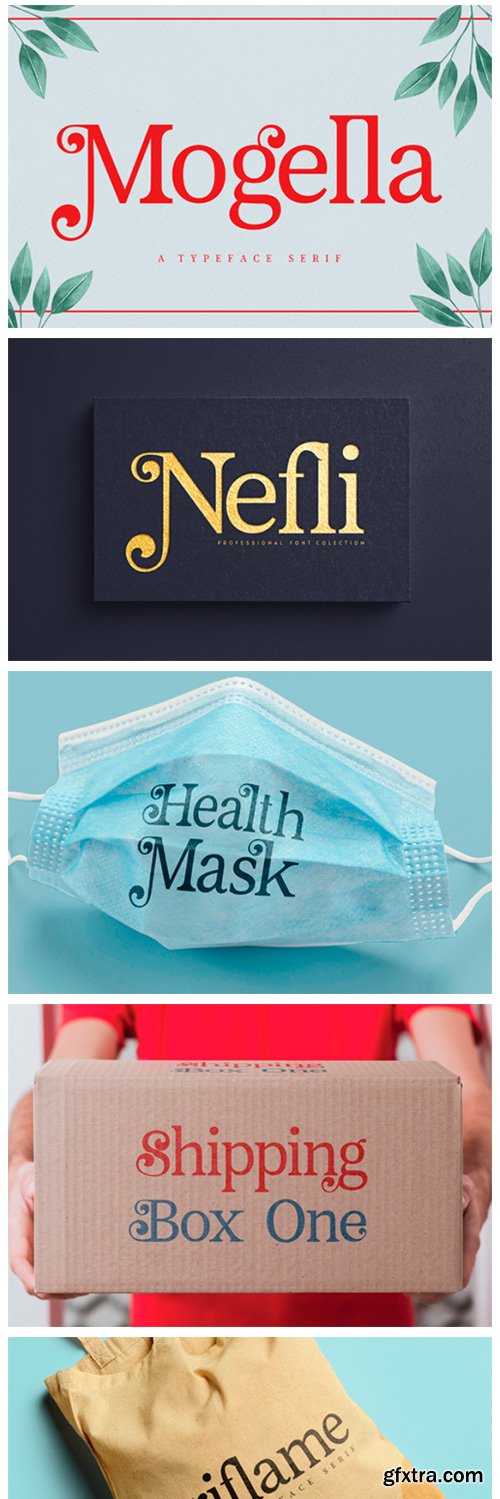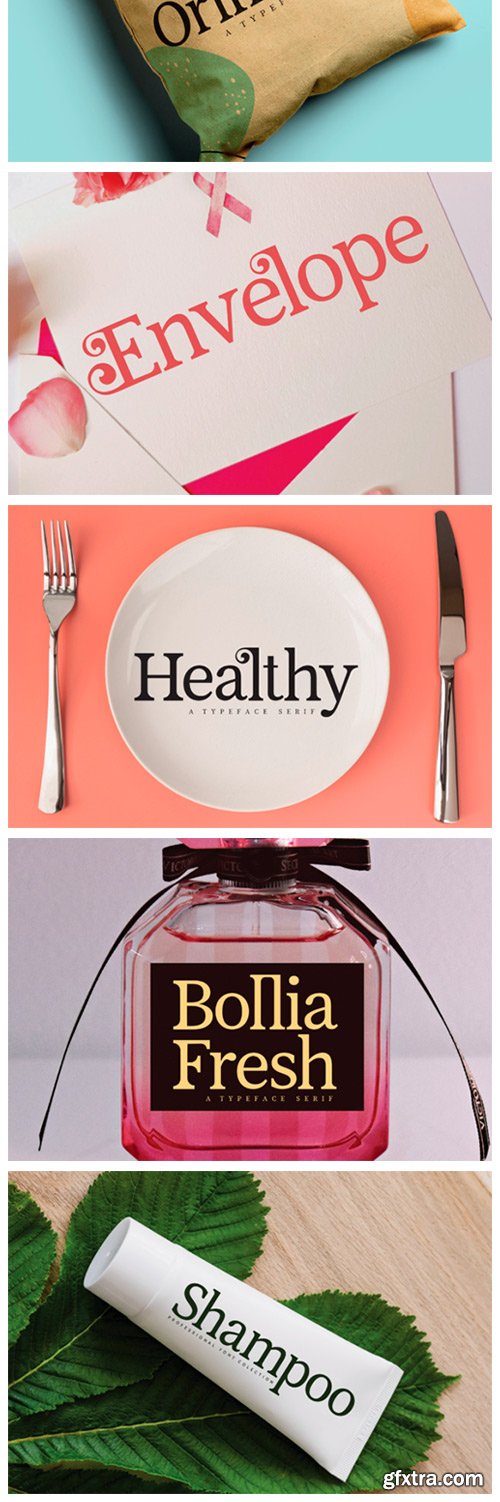
Mogella Font
Mogella is an elegant and bold serif font. Fall in love with its incredibly versatile style and use it to create gorgeous wedding invitations, beautiful stationary art, eye-catching social media posts, and much more! This font is PUA encoded which means you can access all of the glyphs and swashes with ease!